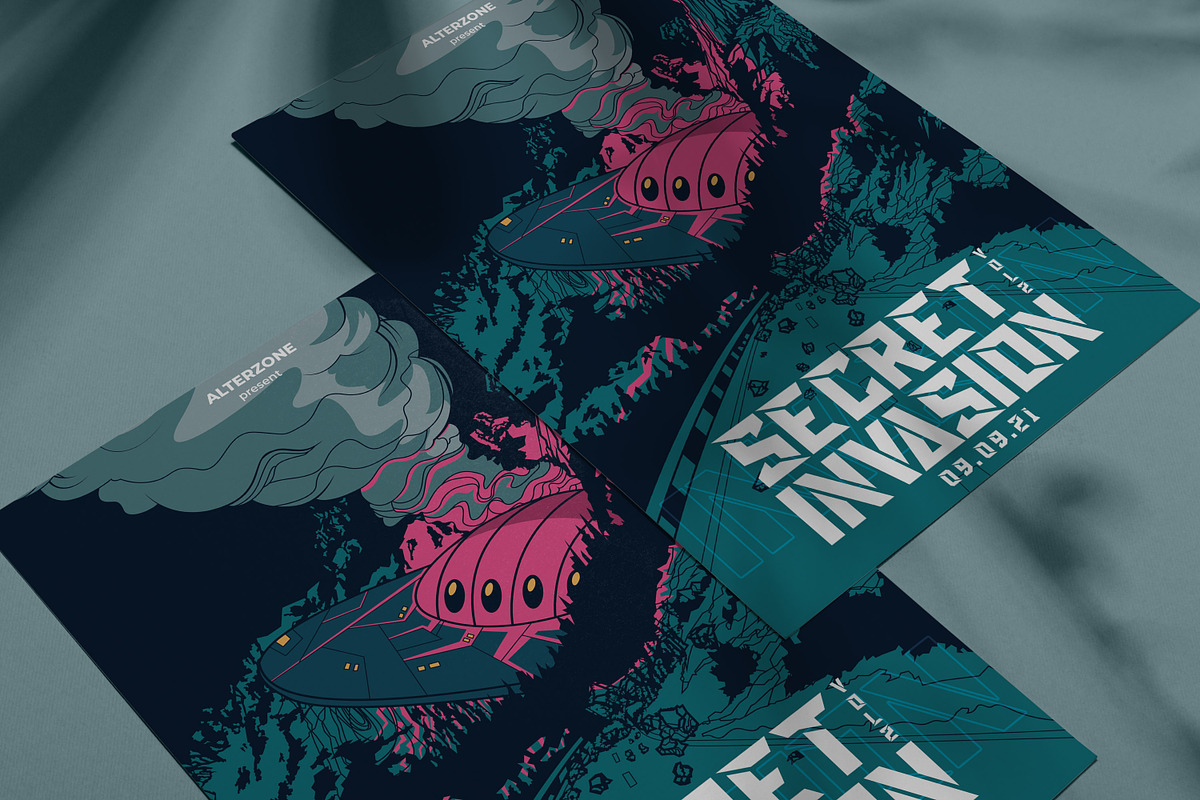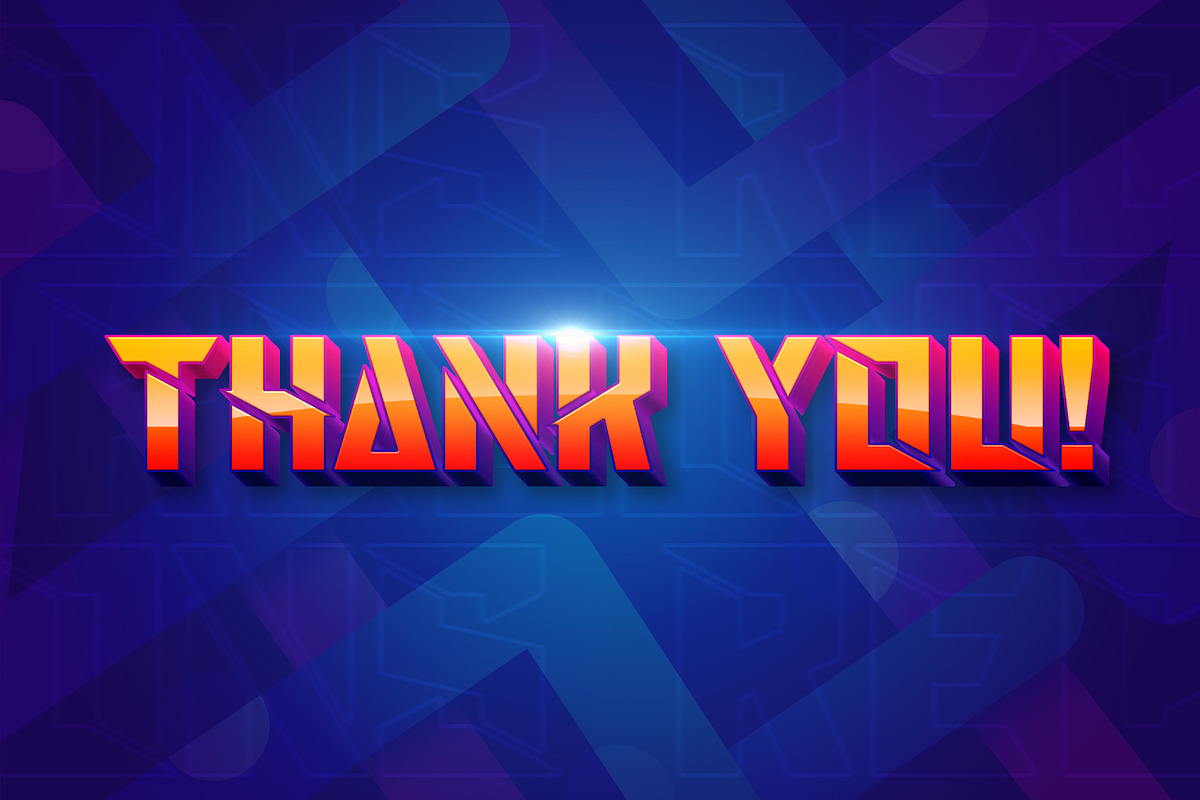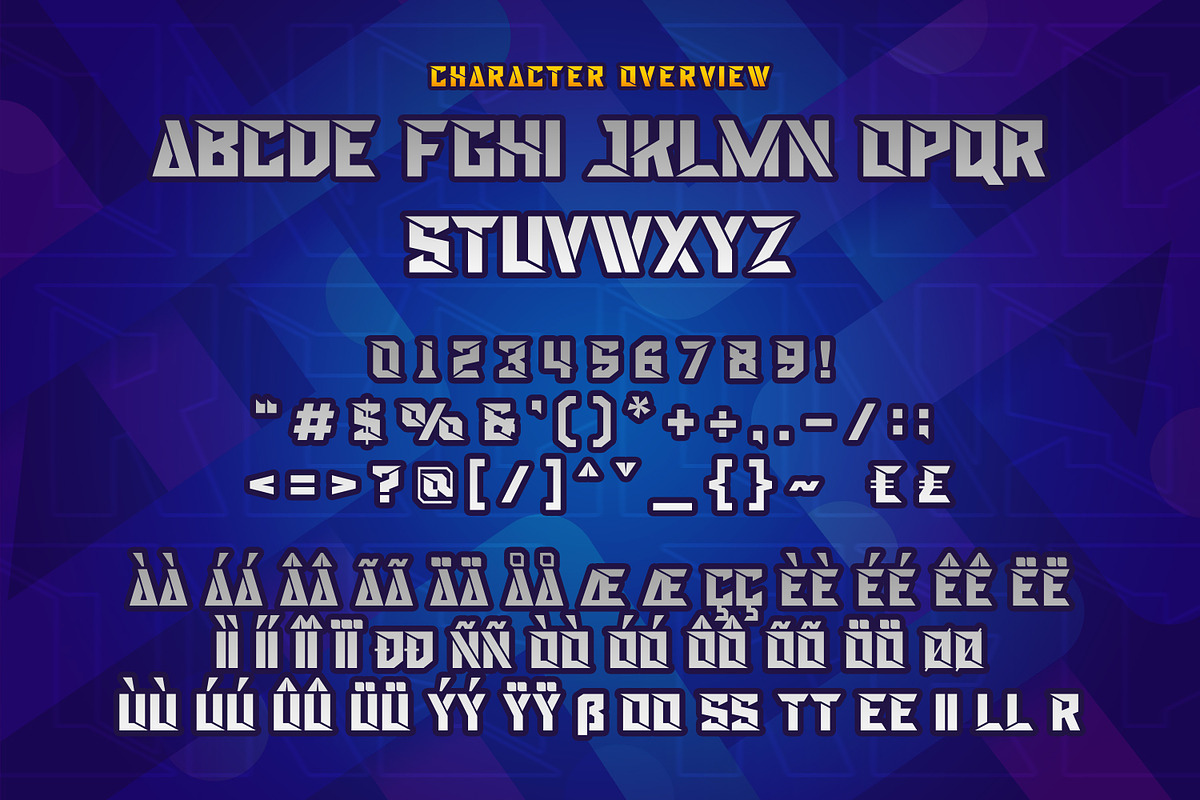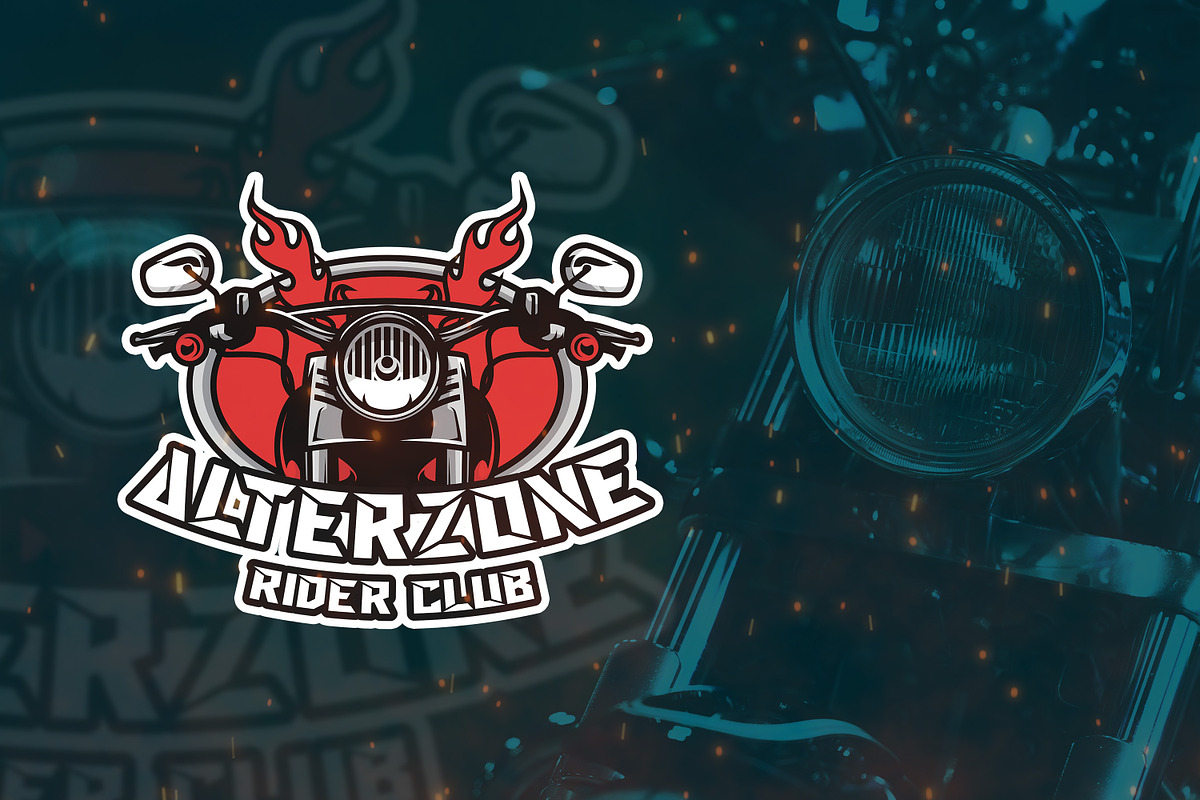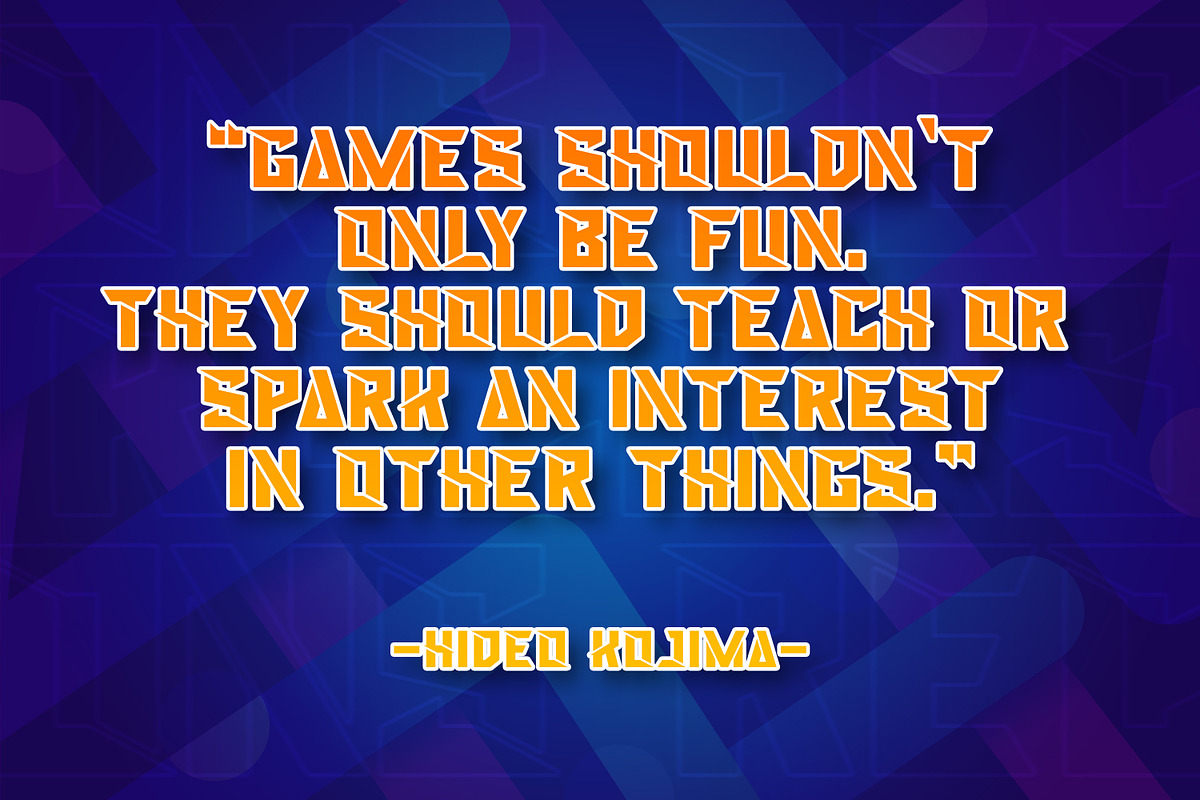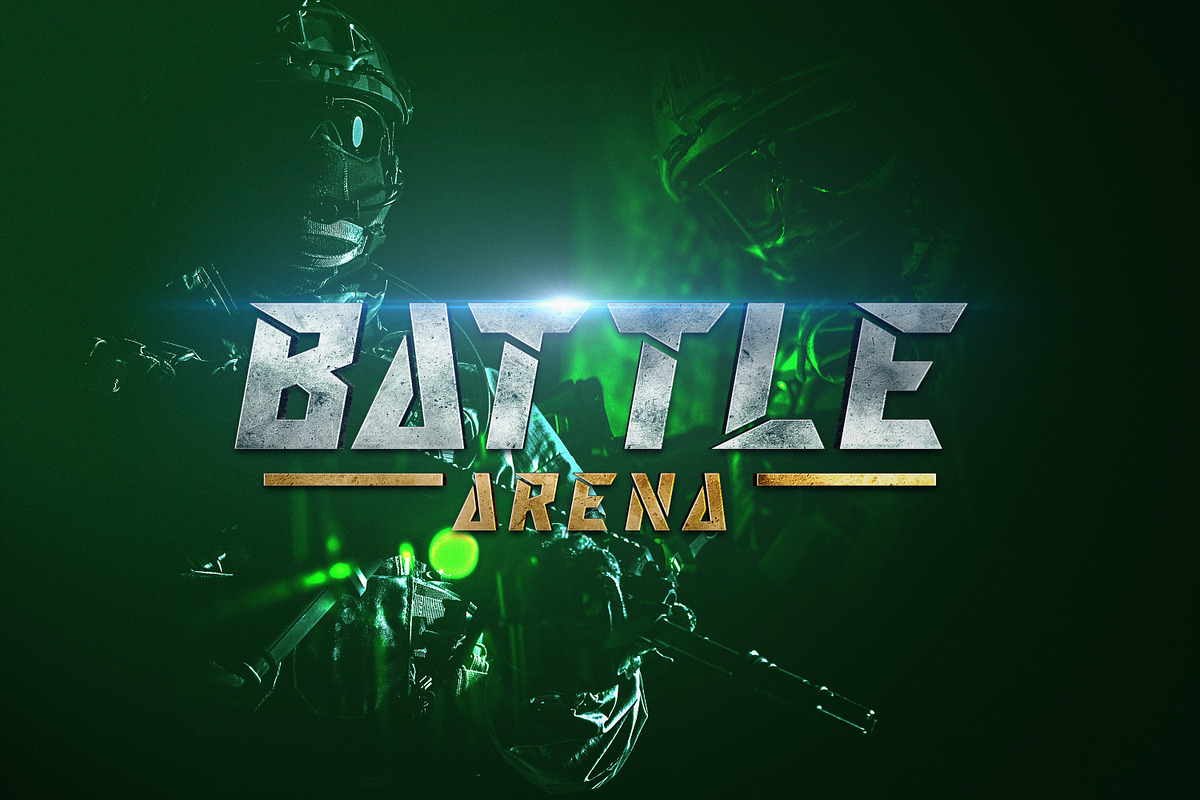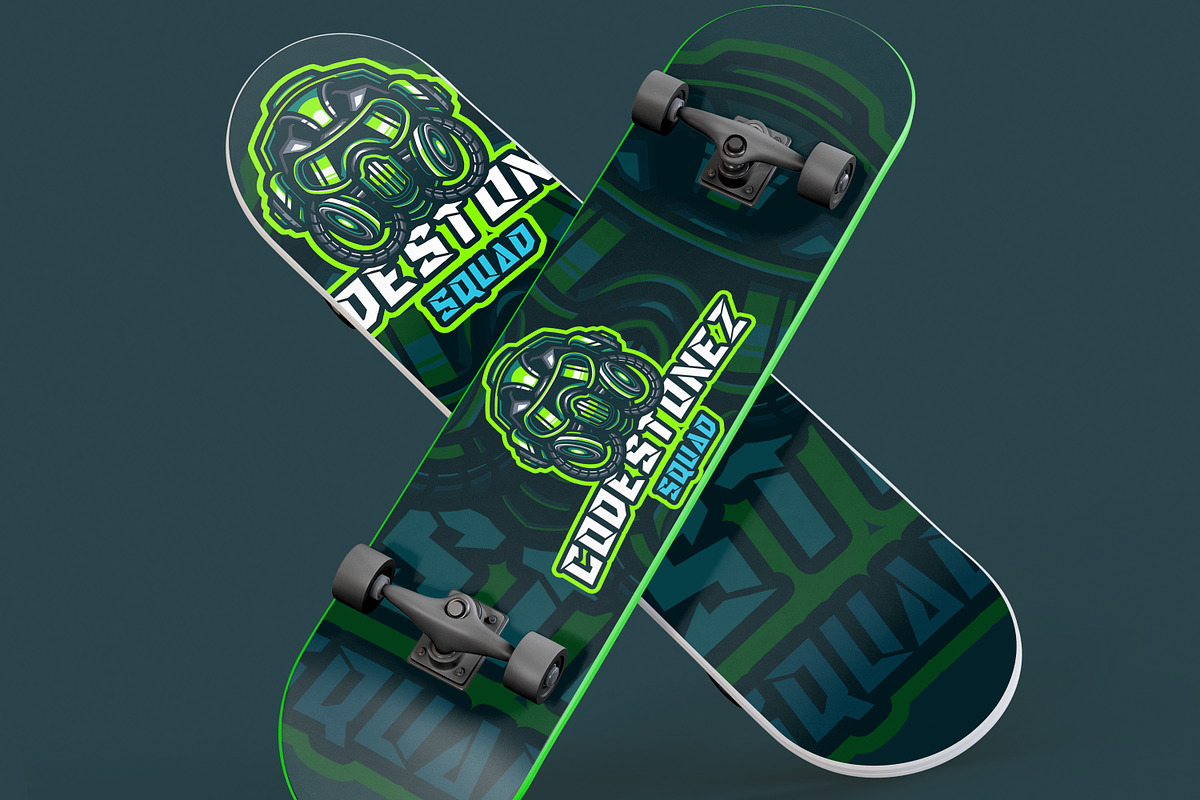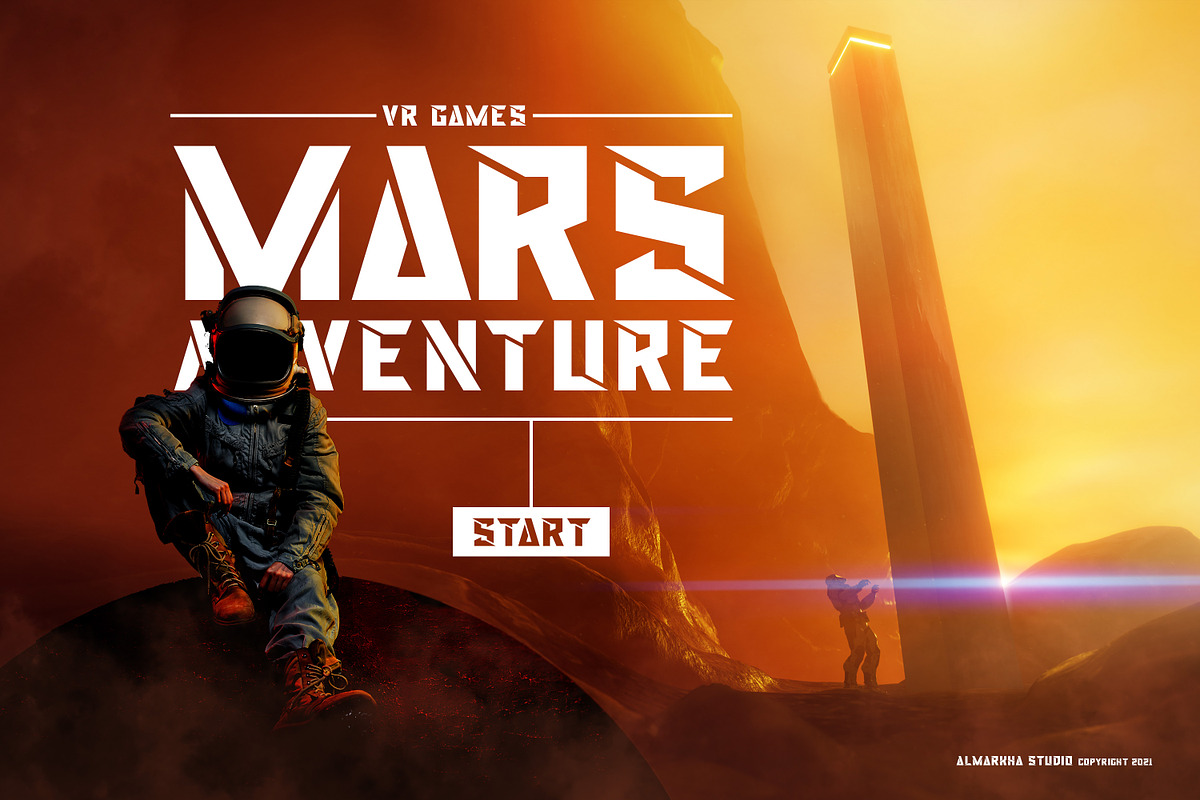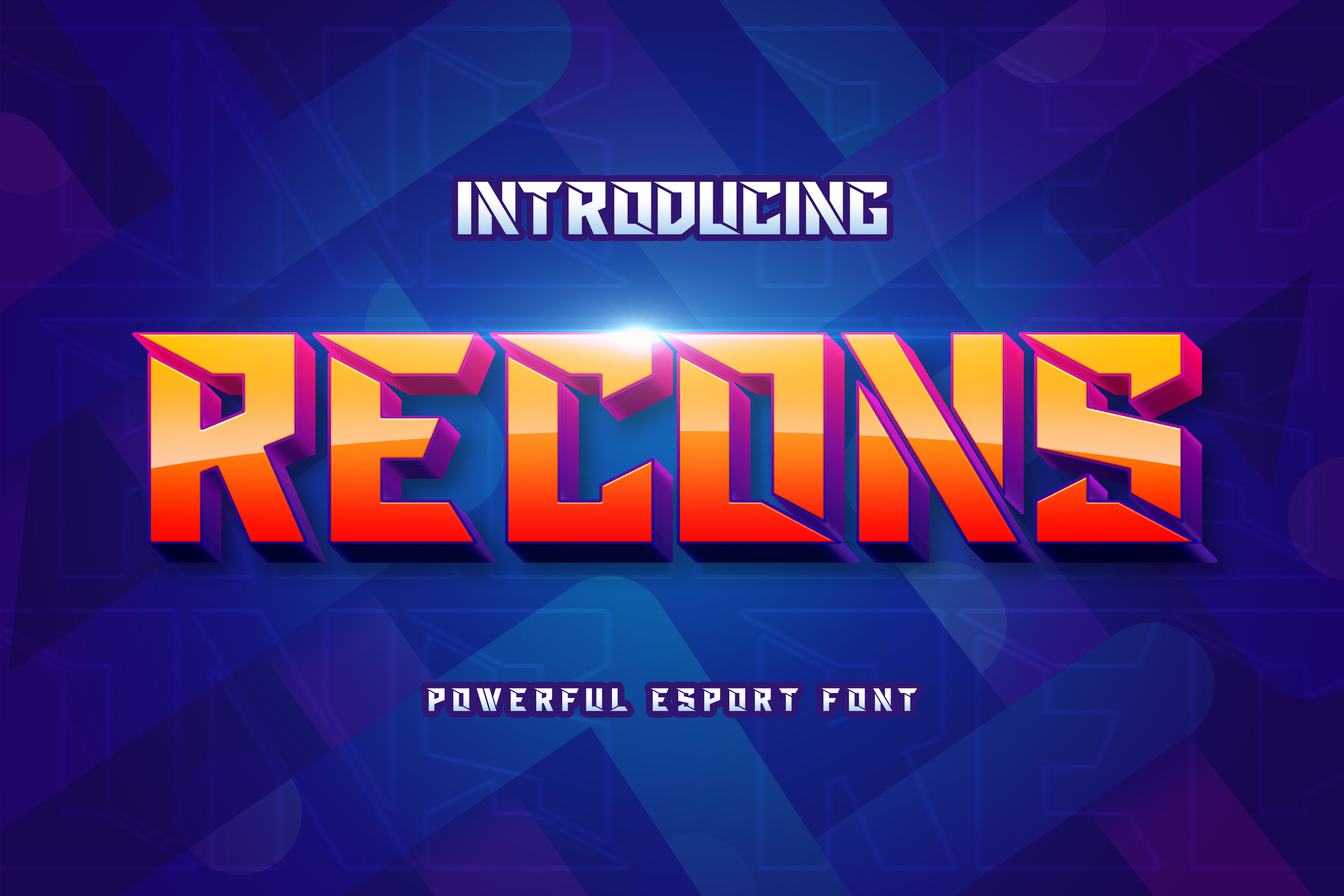
Recons - Powerful Esport Font
Hello Everyone, introduce our new product Recons - Sport Display, inspired by the title of the sports poster and We make it very energetically. Recons font with strong and challenging nuances. very suitable for the title, typography, clothes, Poster, magazines, brochures, packaging,Websites and much more for your design needs, making your designs more modern and professional